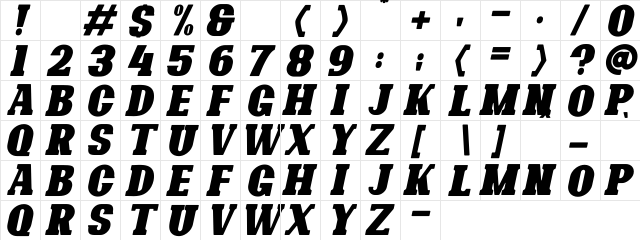
Bonaro Rounded Italic Demo Rounded Italic Font Preview
| Designer | Sabrcreative Studio |
Design Context for Bonaro Rounded Italic Demo Typeface
Bonaro Rounded Italic Demo uses gentle rounded endings to create a warm, inviting typographic personality — less corporate than geometric sans, more refined than playful display fonts. Its italic angle brings a sense of urgency and motion to the letterforms.
Well-suited to UI design, mobile interfaces, and any brand that wants approachability without sacrificing clarity.
Font Pairing: Pairs well with a rounded or humanist sans for body copy, maintaining the friendly tone without relying on Bonaro Rounded Italic Demo to carry extended reading.
Pro Tip: Use Bonaro Rounded Italic Demo for UI elements, app interfaces, and anywhere a friendly, approachable tone needs to be maintained without sacrificing clarity.